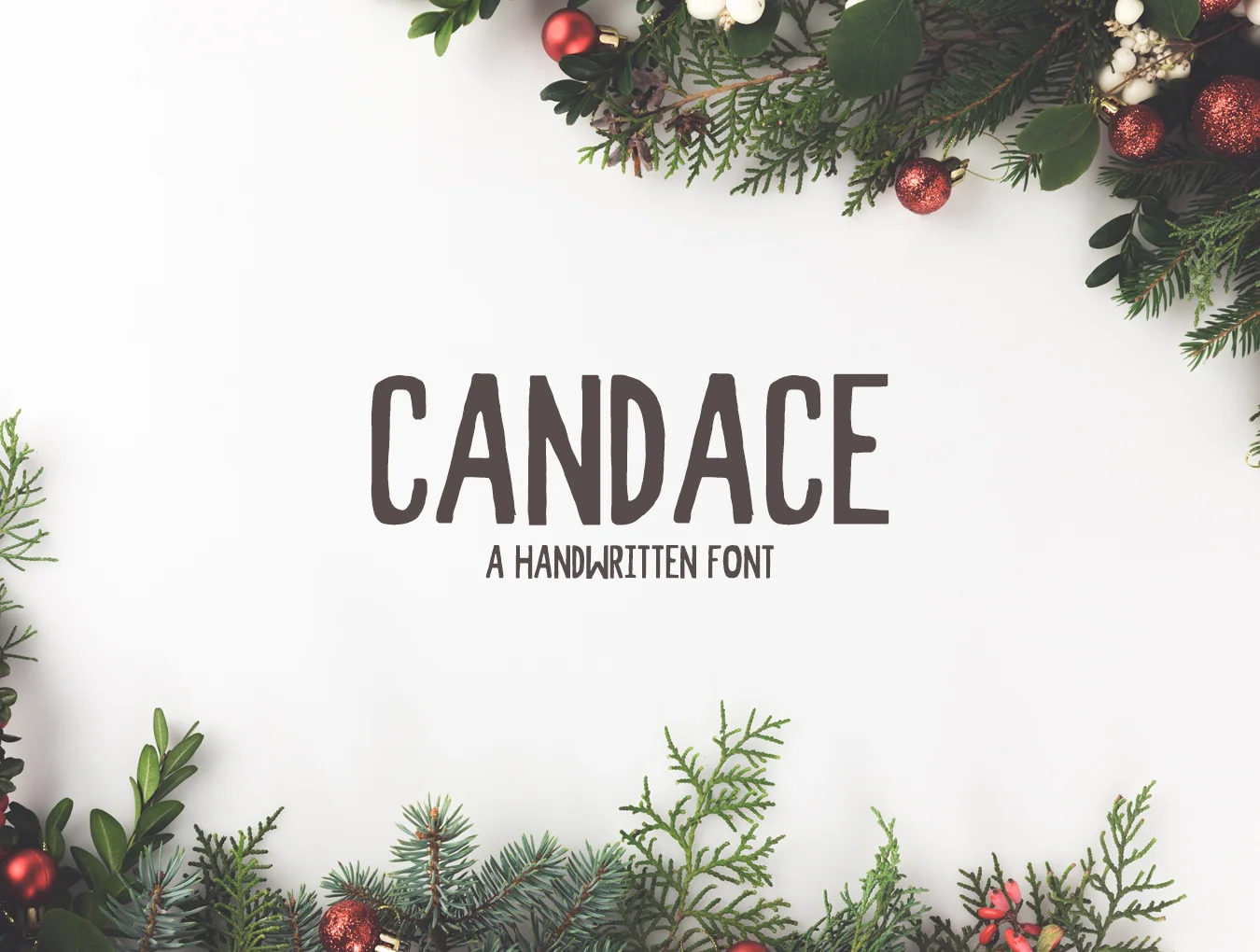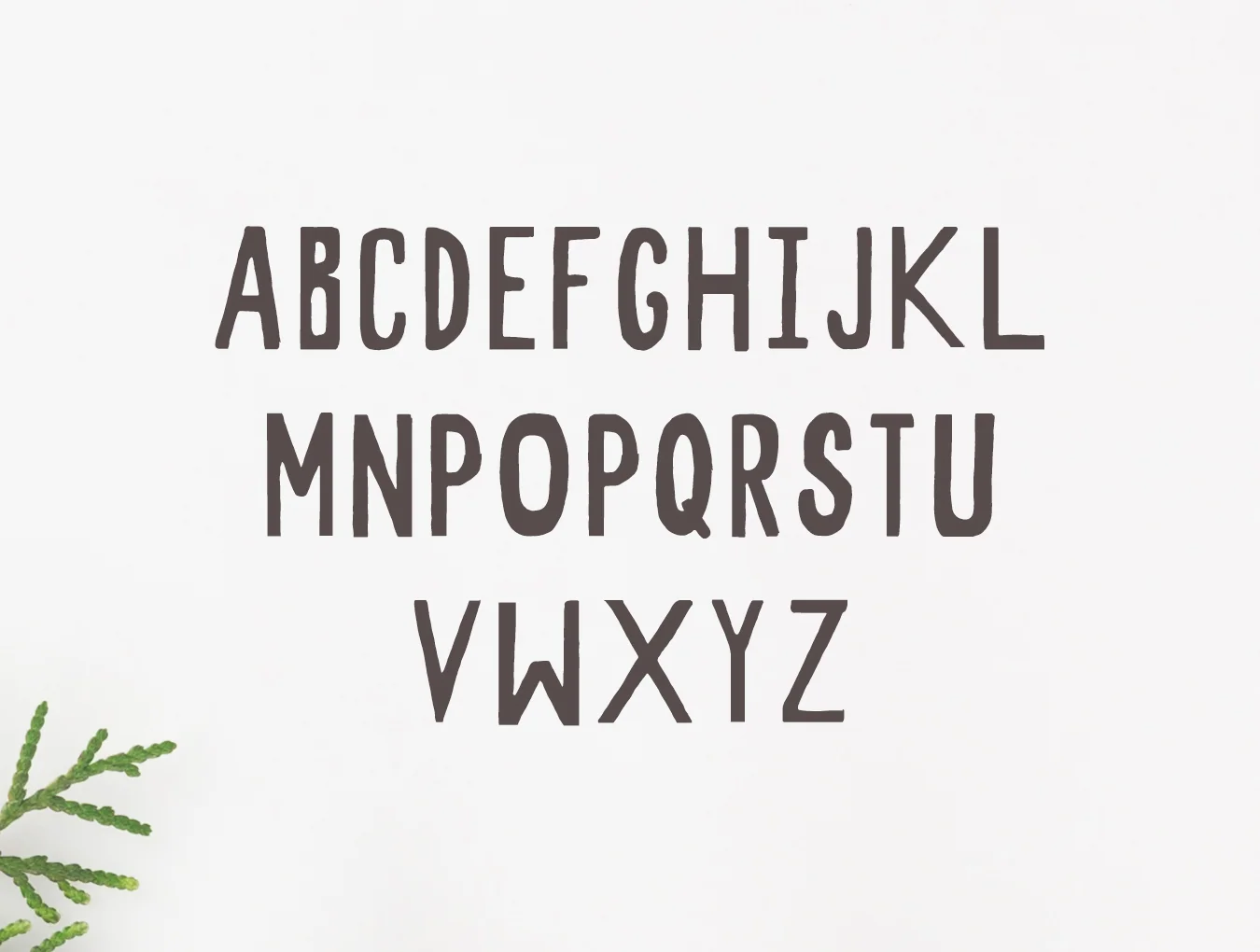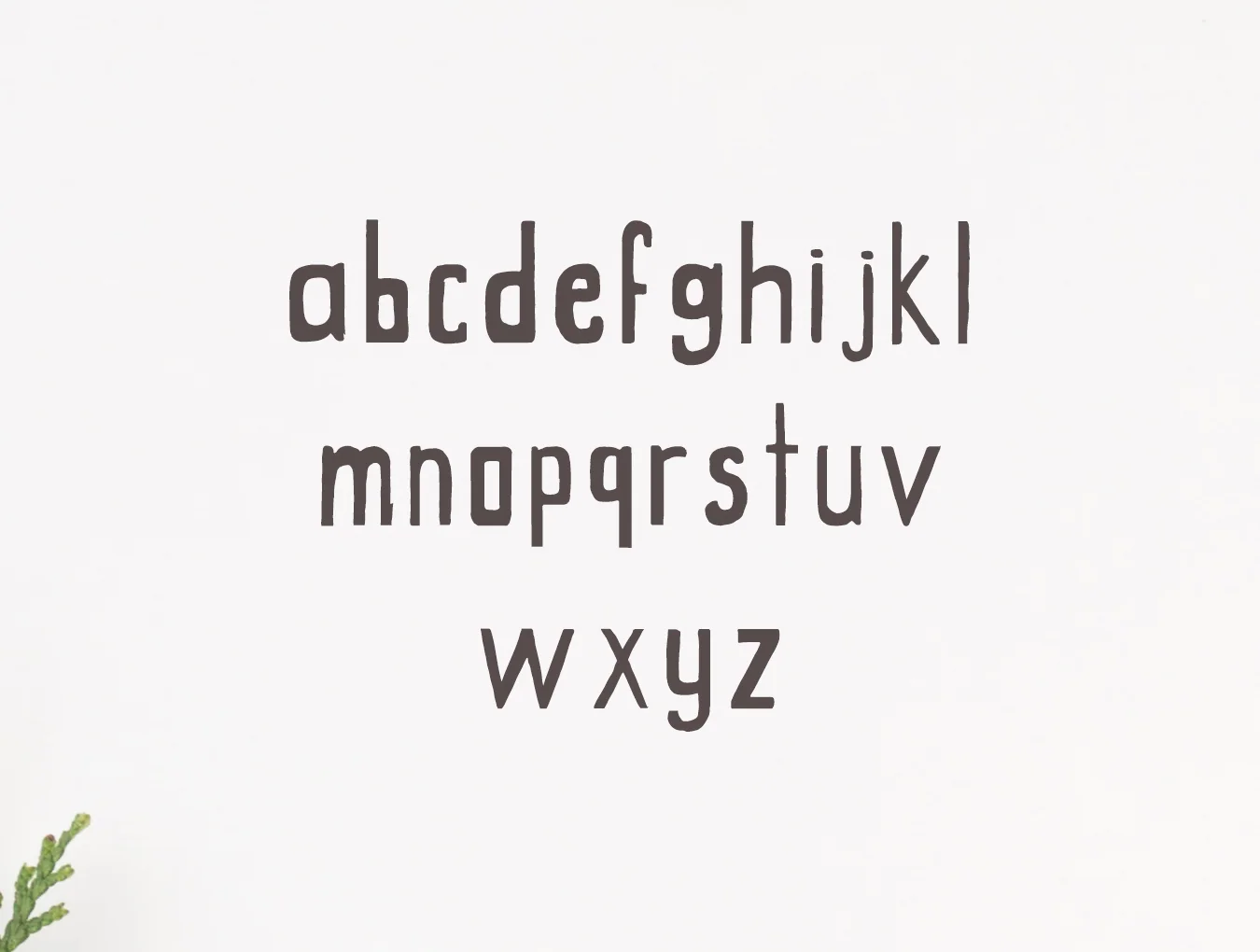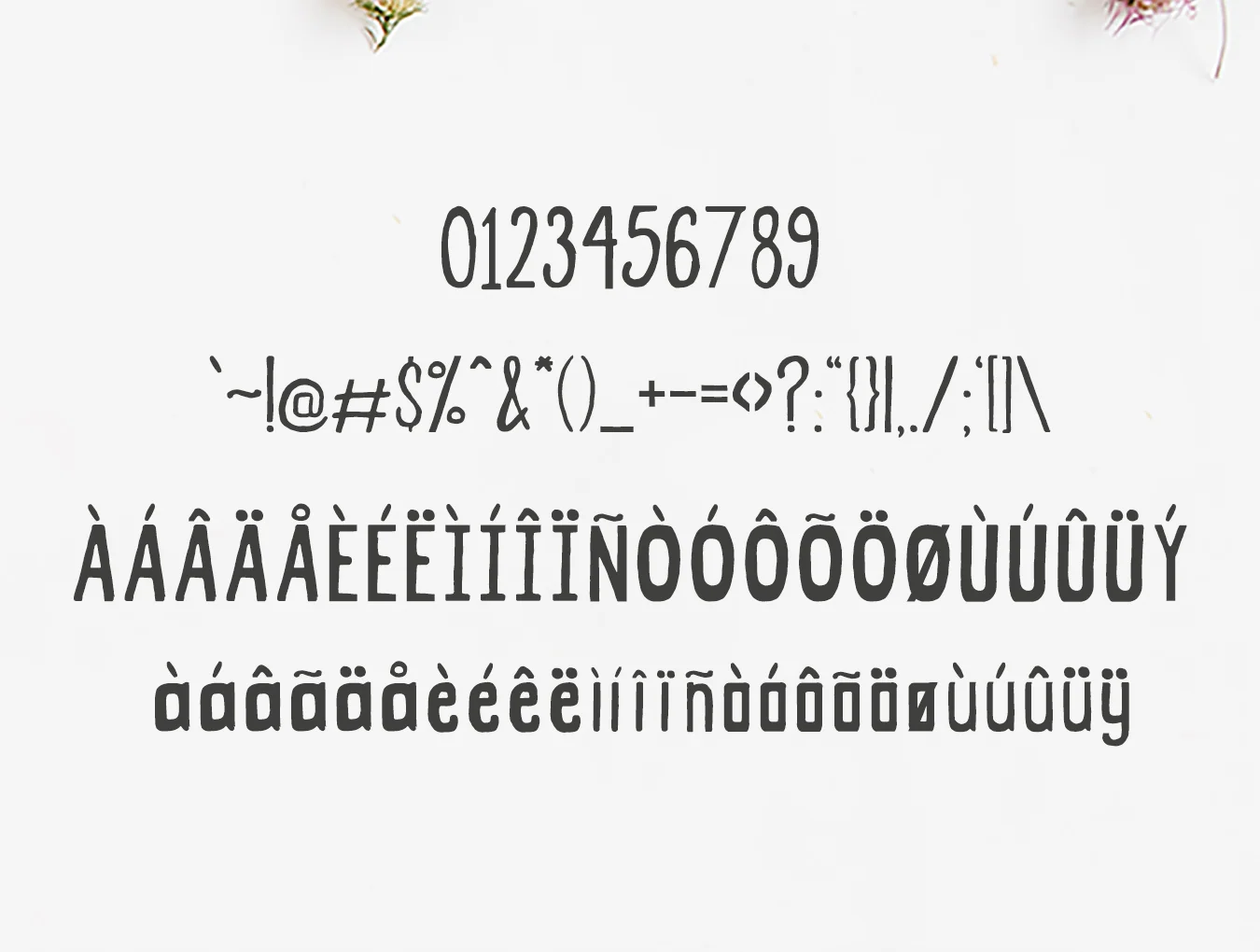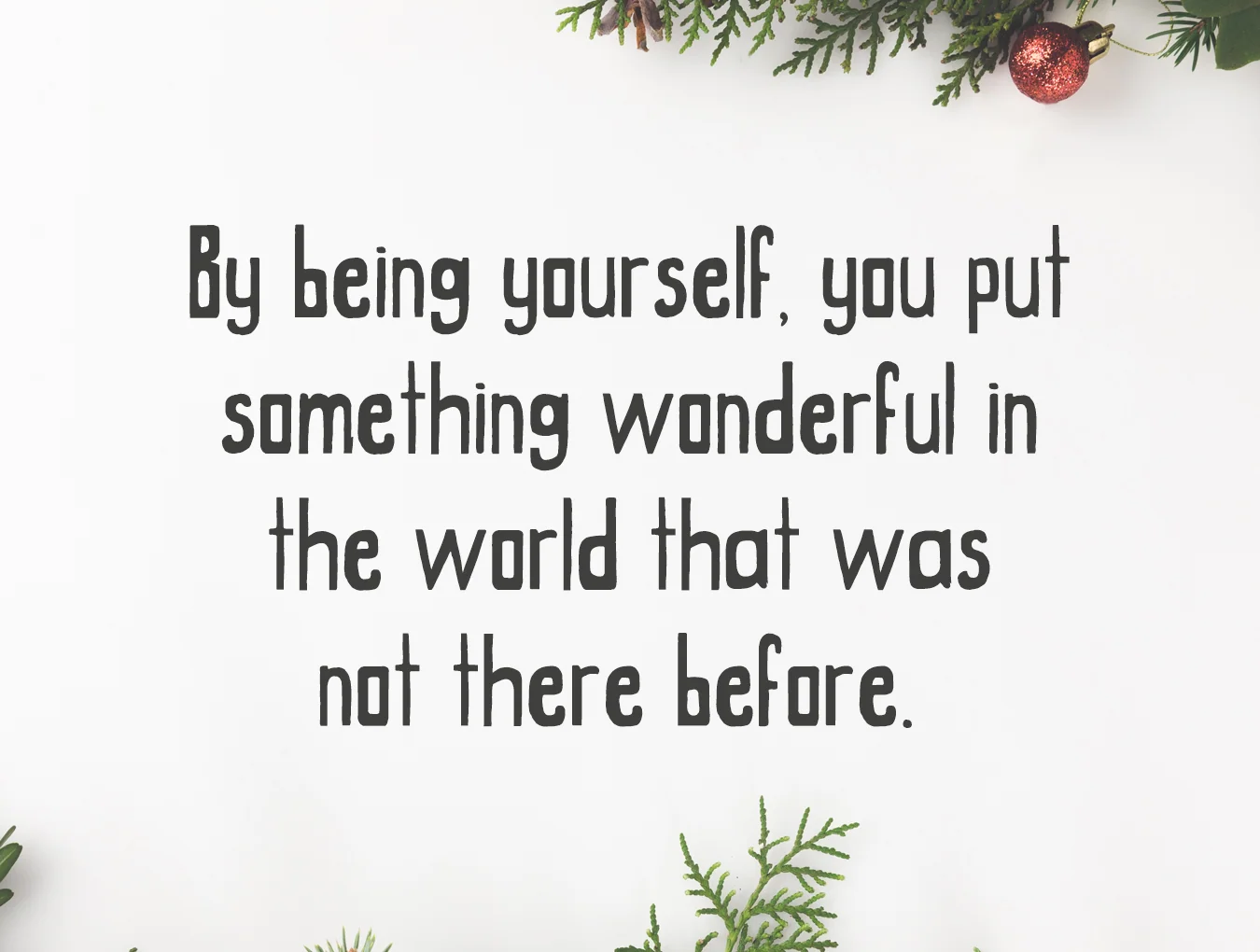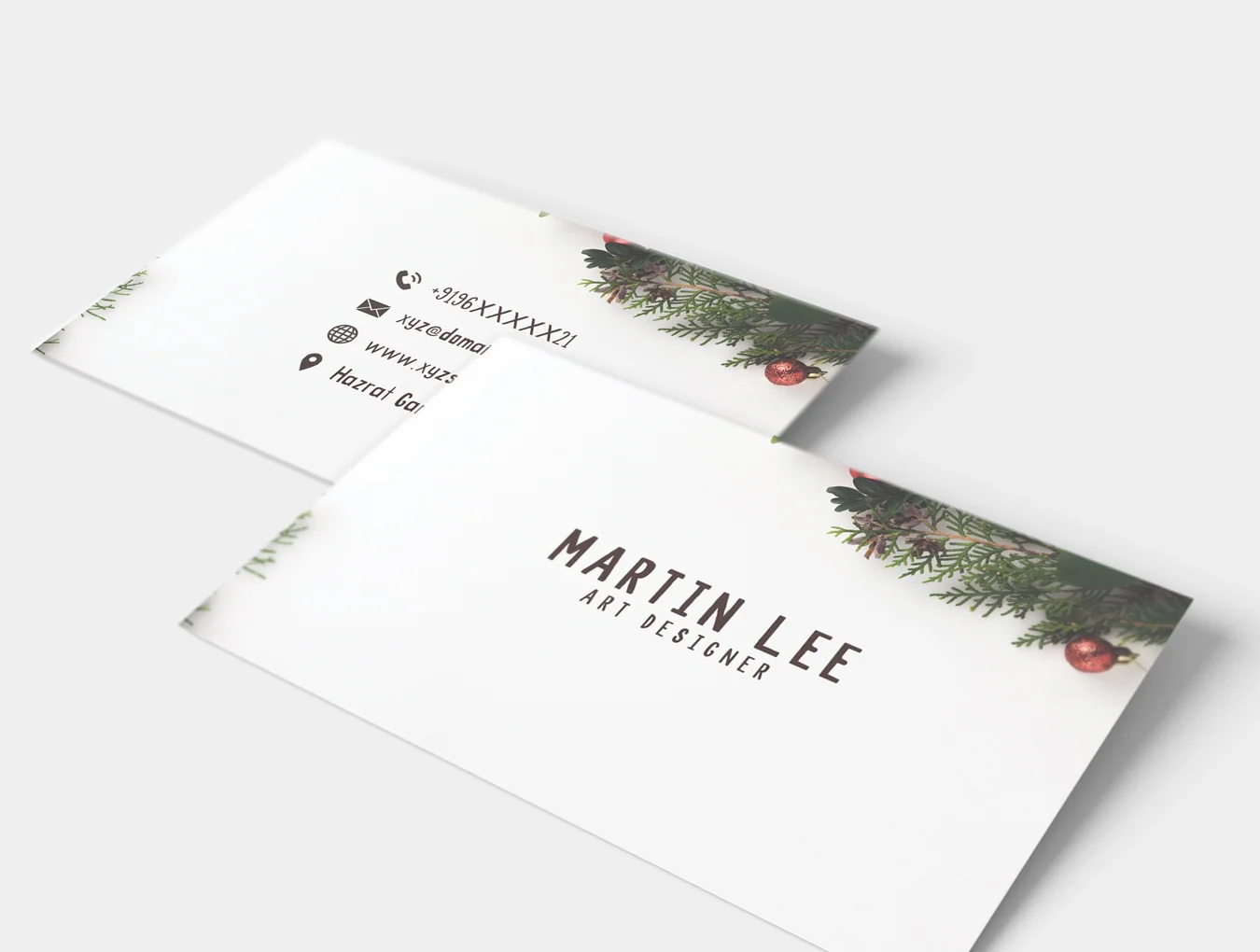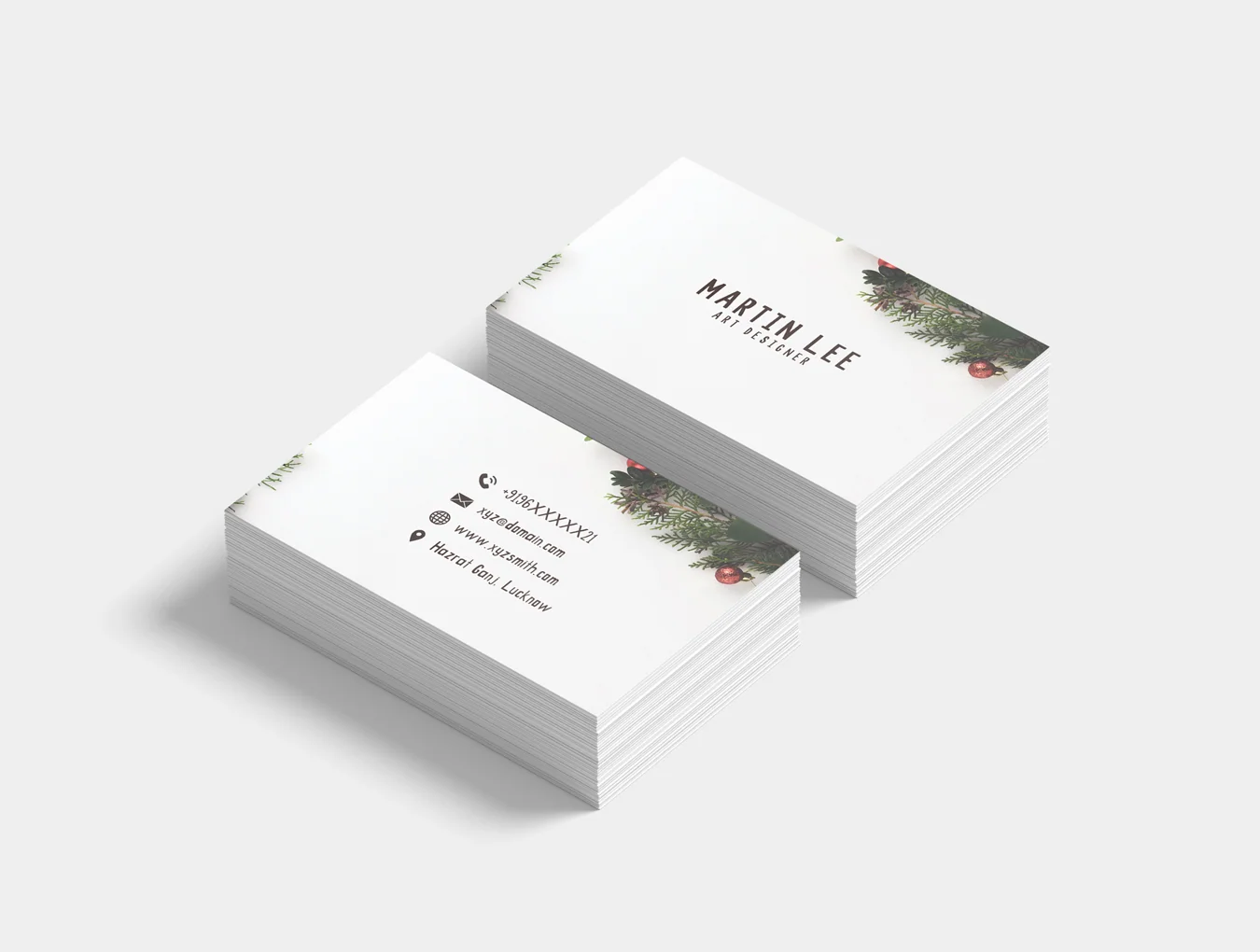
Candace Handwritten Font
Hand-drawn typeface
158 included characters
Standard weight style
Candace is a stylish handwritten typeface featuring full uppercase and lowercase letters, numerals, and alternate characters. It works well for logos, prints, quotes, badges, labels, packaging, blogs, websites, headlines, banners, posters, T-shirts, magazines, templates, promotional items, and more.